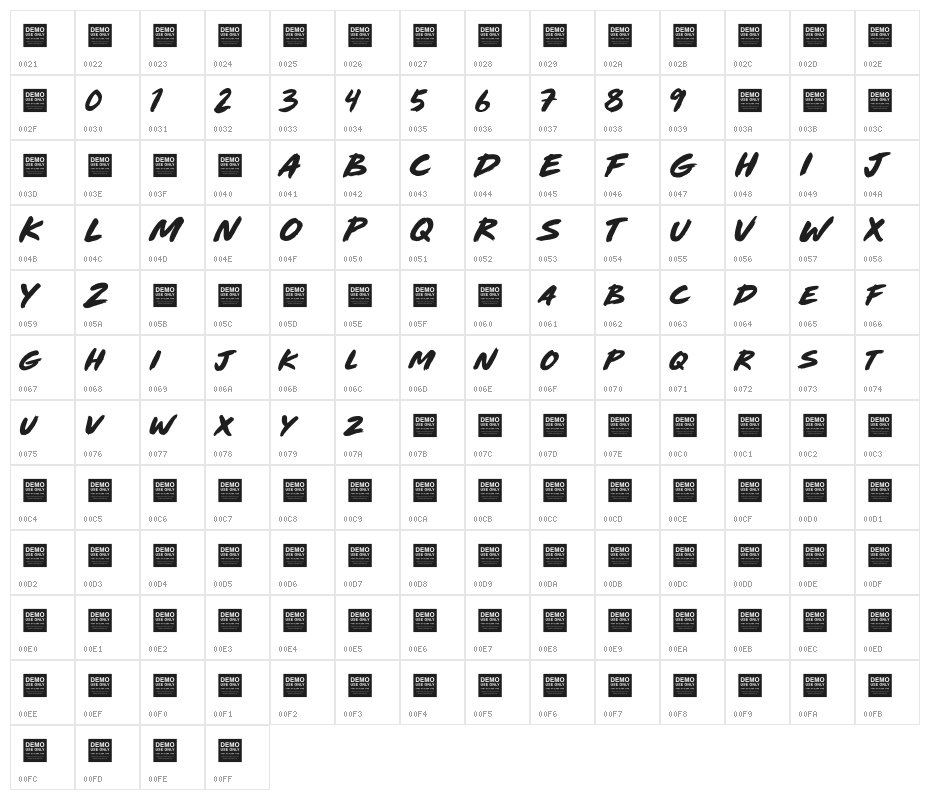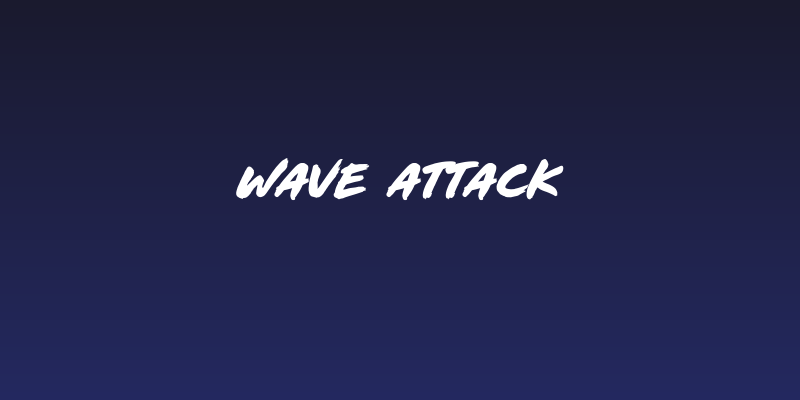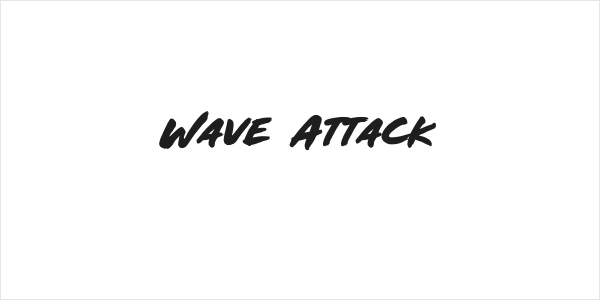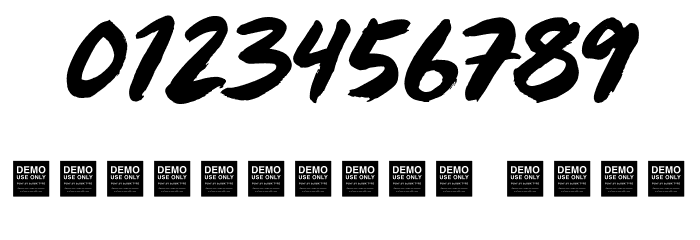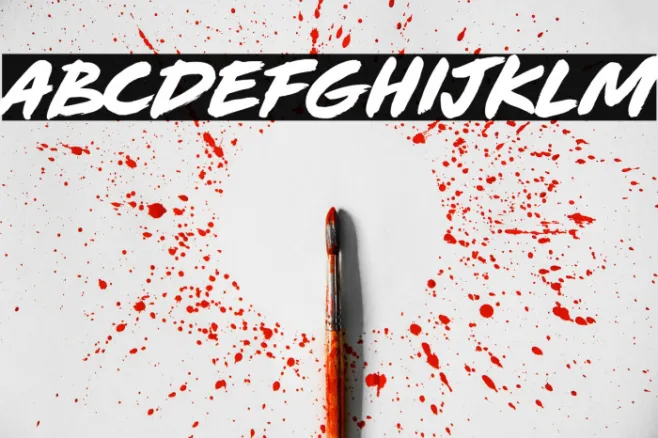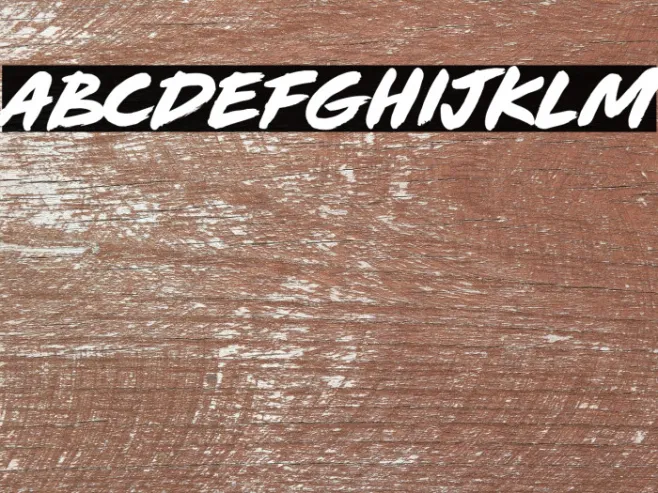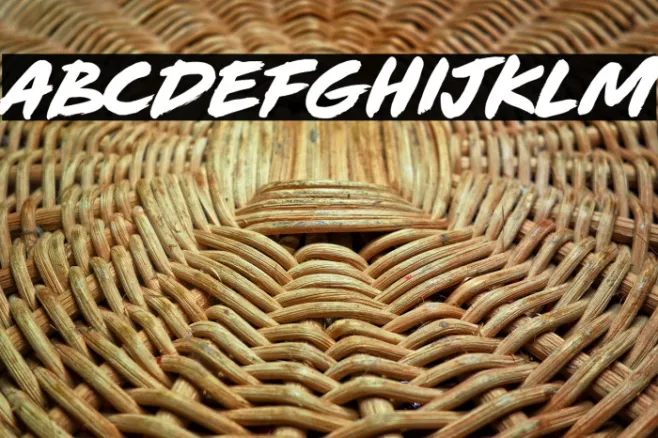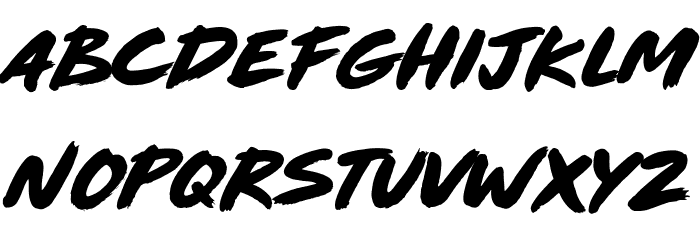
Wave Attack Font
Wave Attack Description
This font features a bold and dynamic brush script style, characterized by its energetic and flowing strokes. The letters are crafted with a sense of movement and rhythm, giving it a lively and expressive appearance. The uppercase and lowercase letters maintain a consistent style, with thick, bold lines that create a strong visual impact. The numbers are equally bold, ensuring readability and consistency across all characters. This font is perfect for projects that require a touch of creativity and flair, making it ideal for headlines, posters, and branding materials.